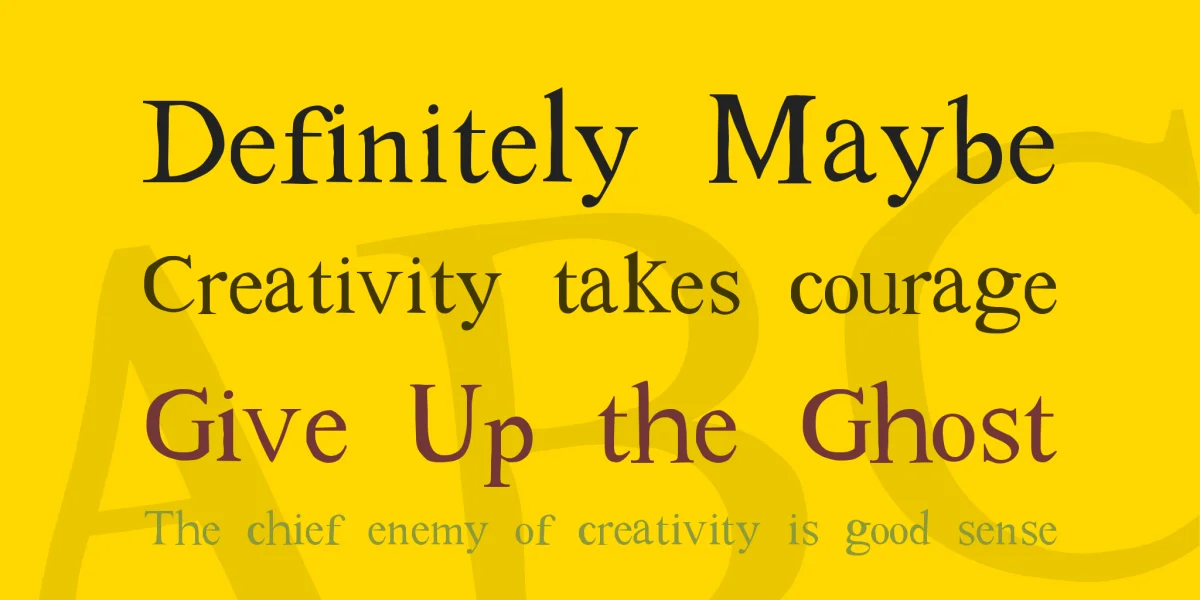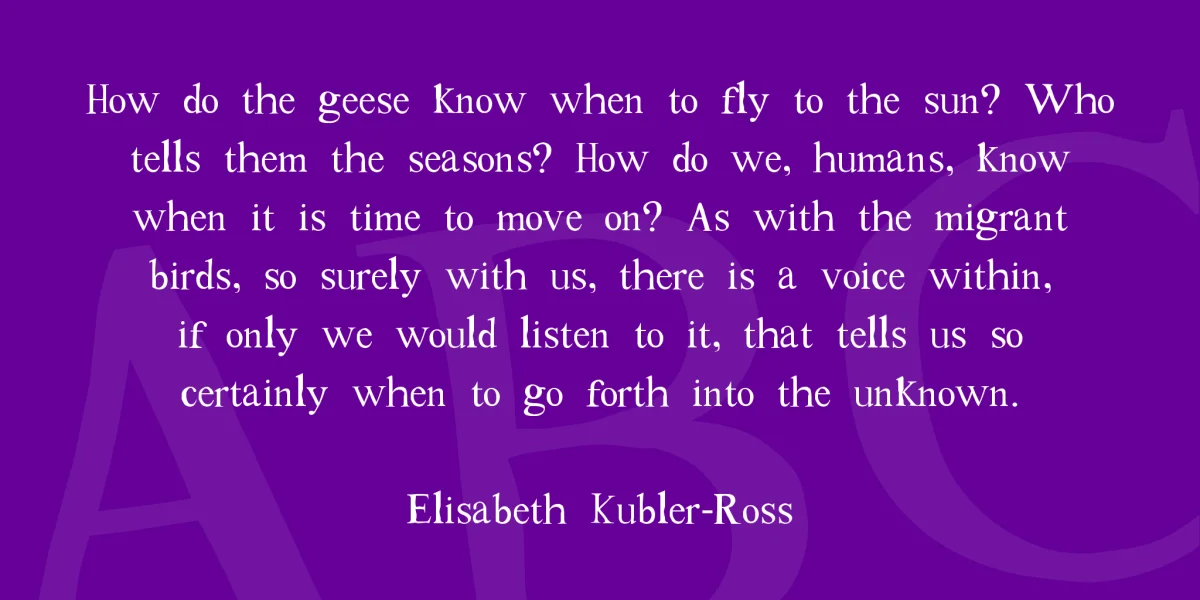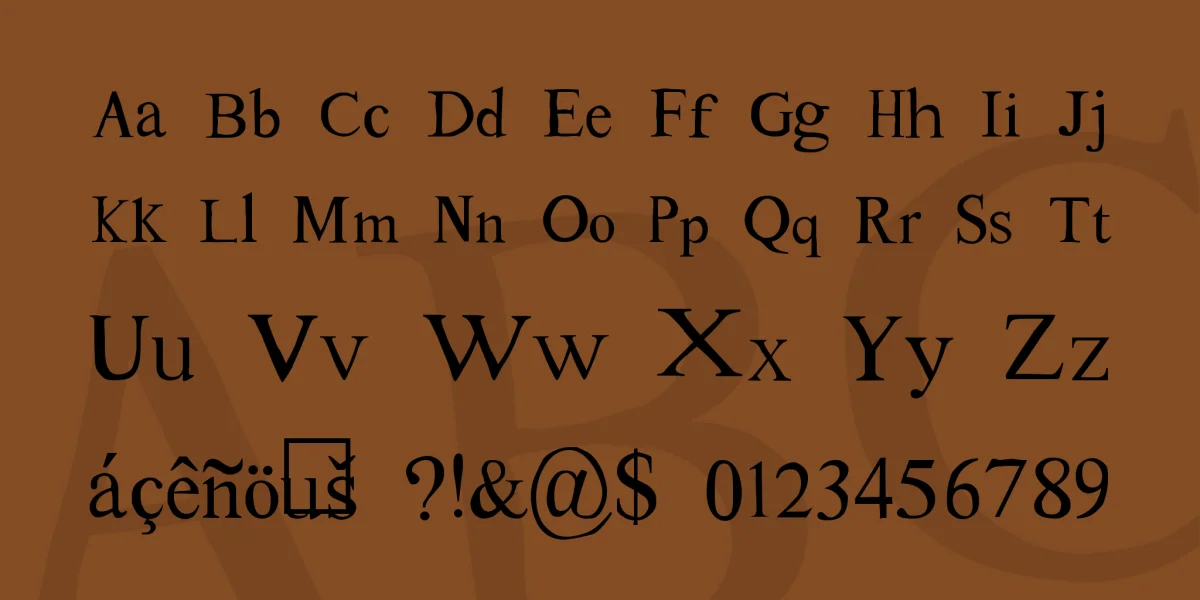
(All characters) is my replacement for the dreaded Times New Roman. The letters have slightly varying sizes and carry a hand-drawn look (because in fact they were). They also look much better than Times Roman when at large sizes. The text is readable at small point sizes, and all characters are included for complete compatibility. Also, this is more than a simple effect applied to the Times Roman font -- each character was drawn from scratch.